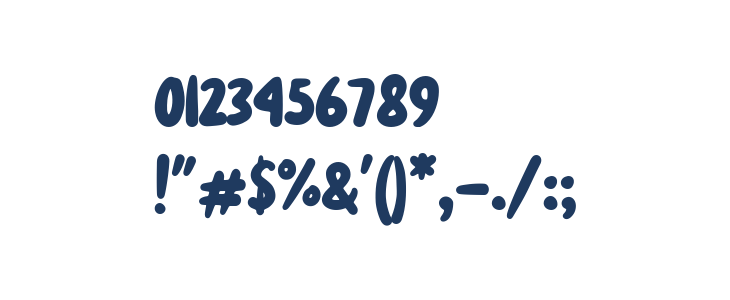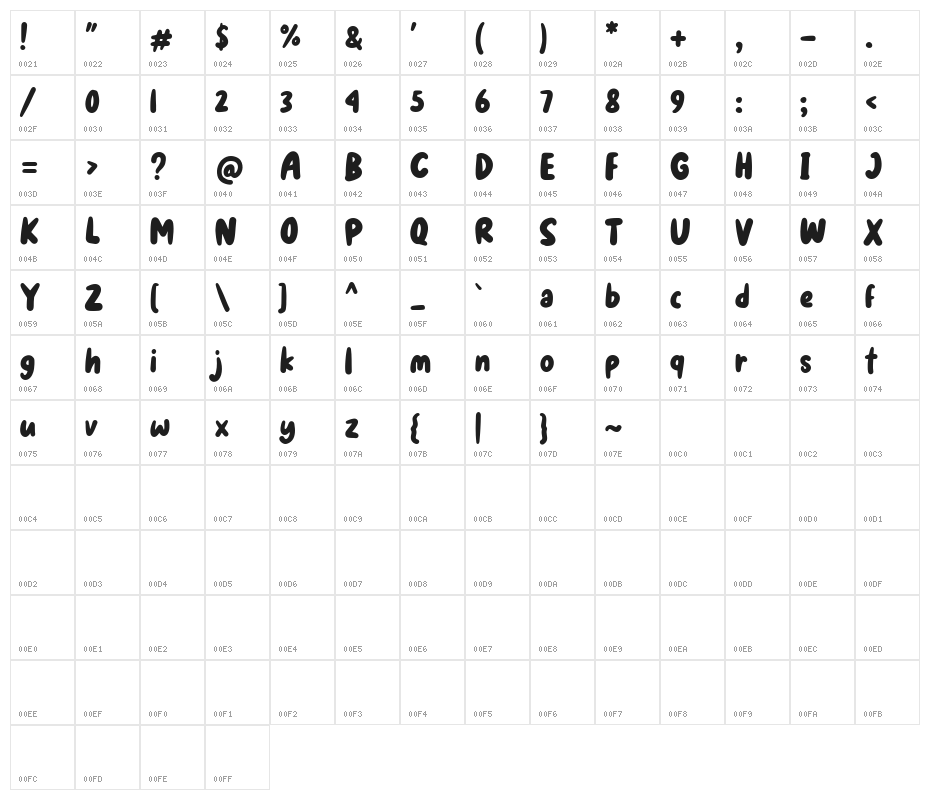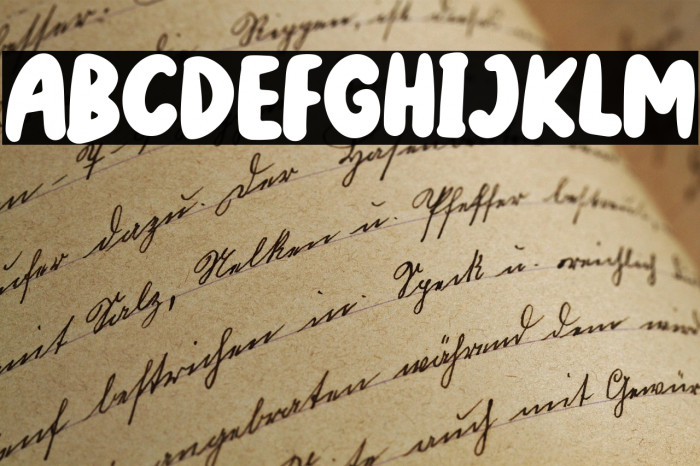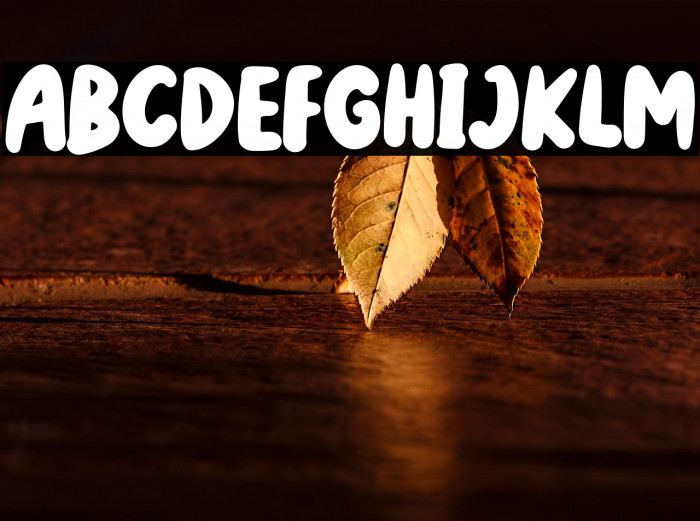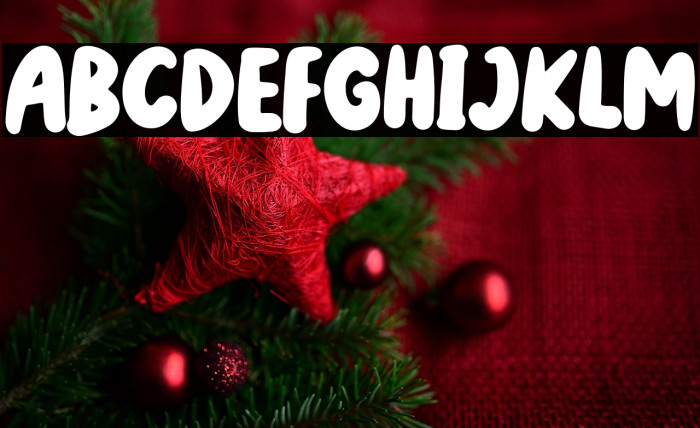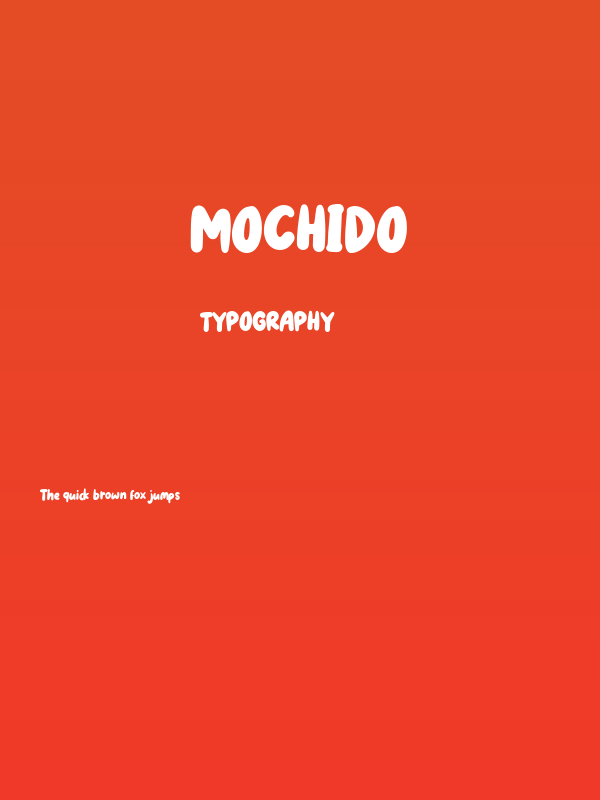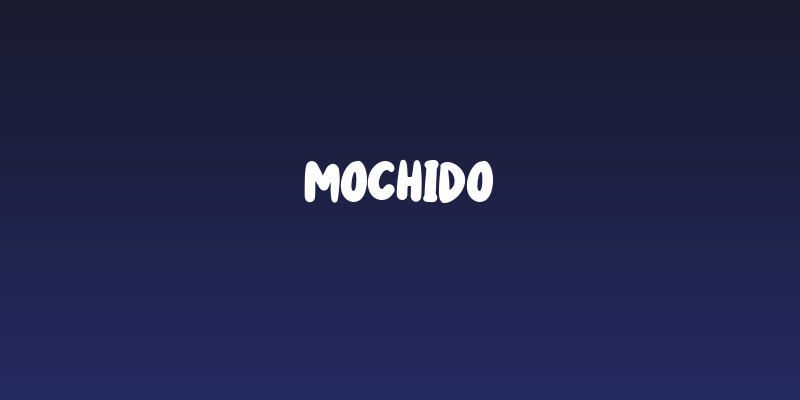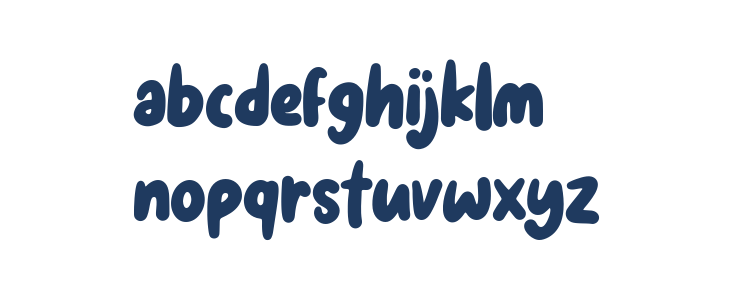
Mochido Font
Mochido Description
This playful and bold font features rounded, thick strokes that give it a friendly and approachable appearance. The characters are slightly irregular, adding a hand-drawn feel that enhances its charm. The uppercase and lowercase letters are well-balanced, maintaining consistency in style. The numerals and special characters follow the same design principles, ensuring a cohesive look across all elements. This font is perfect for projects that require a touch of whimsy and creativity, making it ideal for children's books, playful branding, or casual invitations.
| Overall Style | Playful, Hand-drawn |
| Proposed Projects | Children's books, playful branding, casual invitations, posters, and social media graphics. |